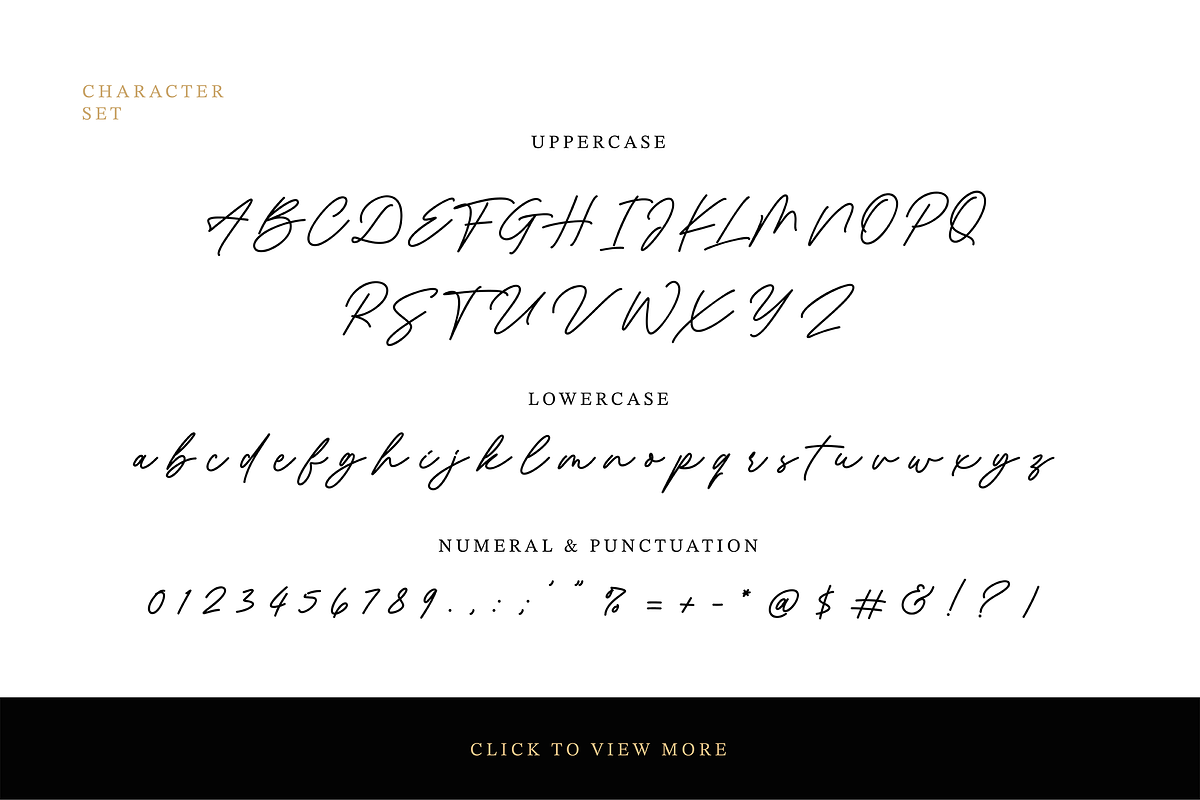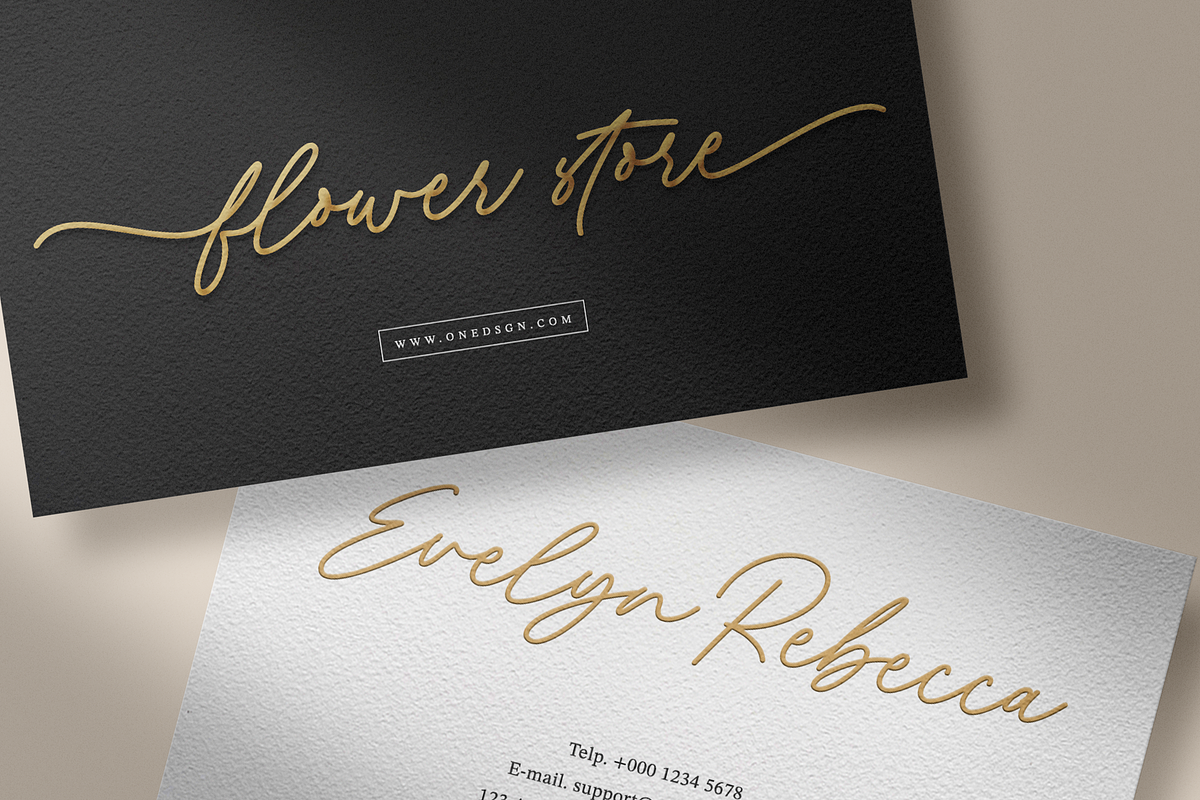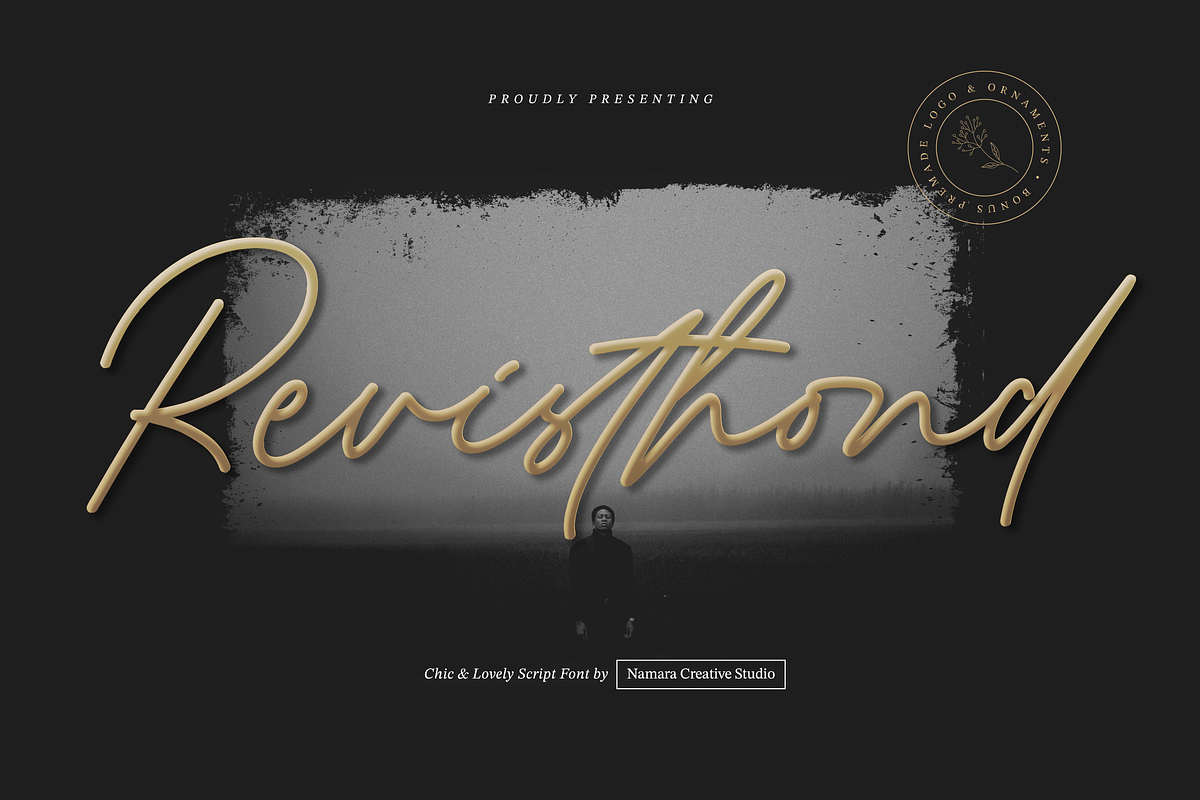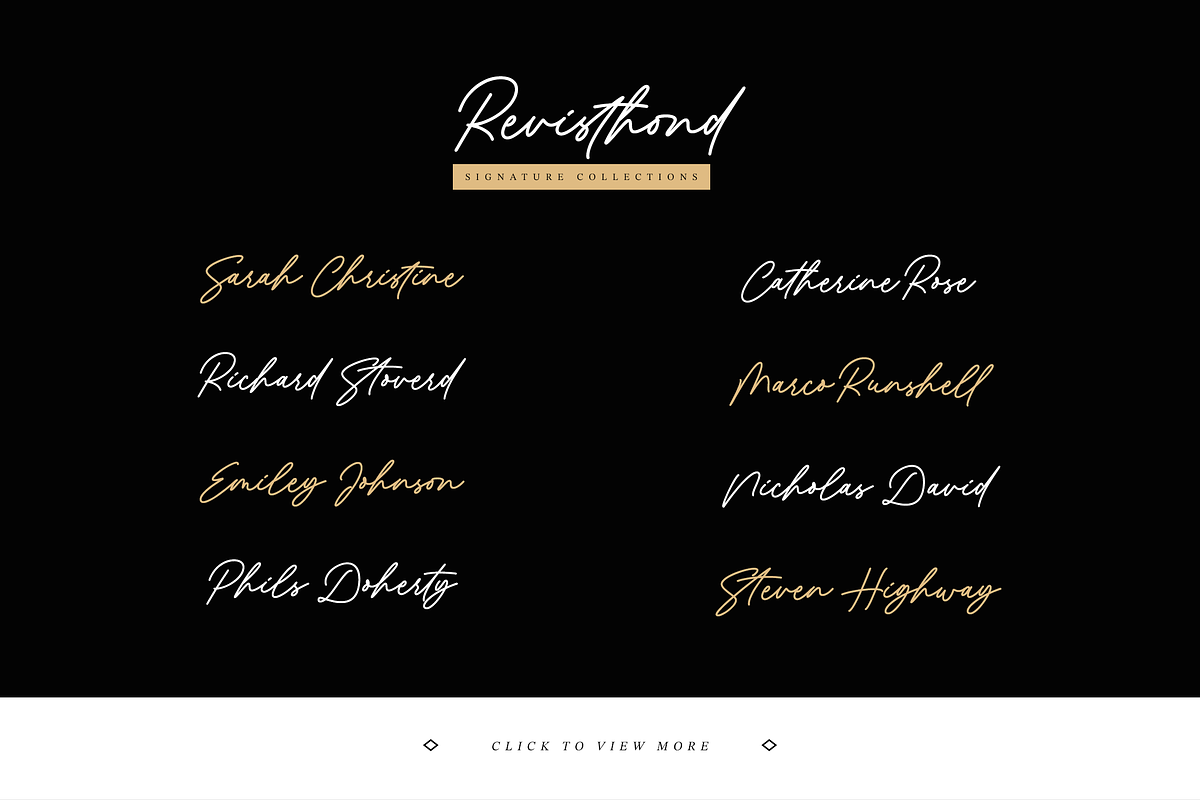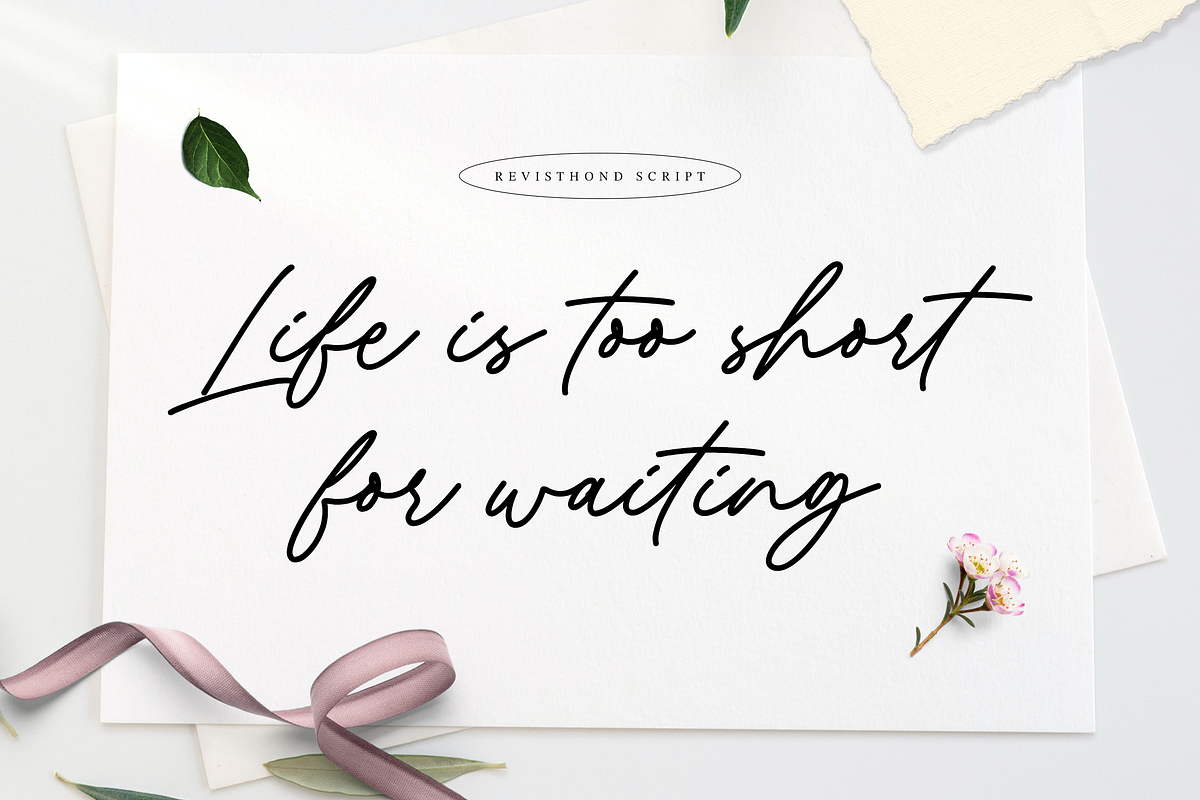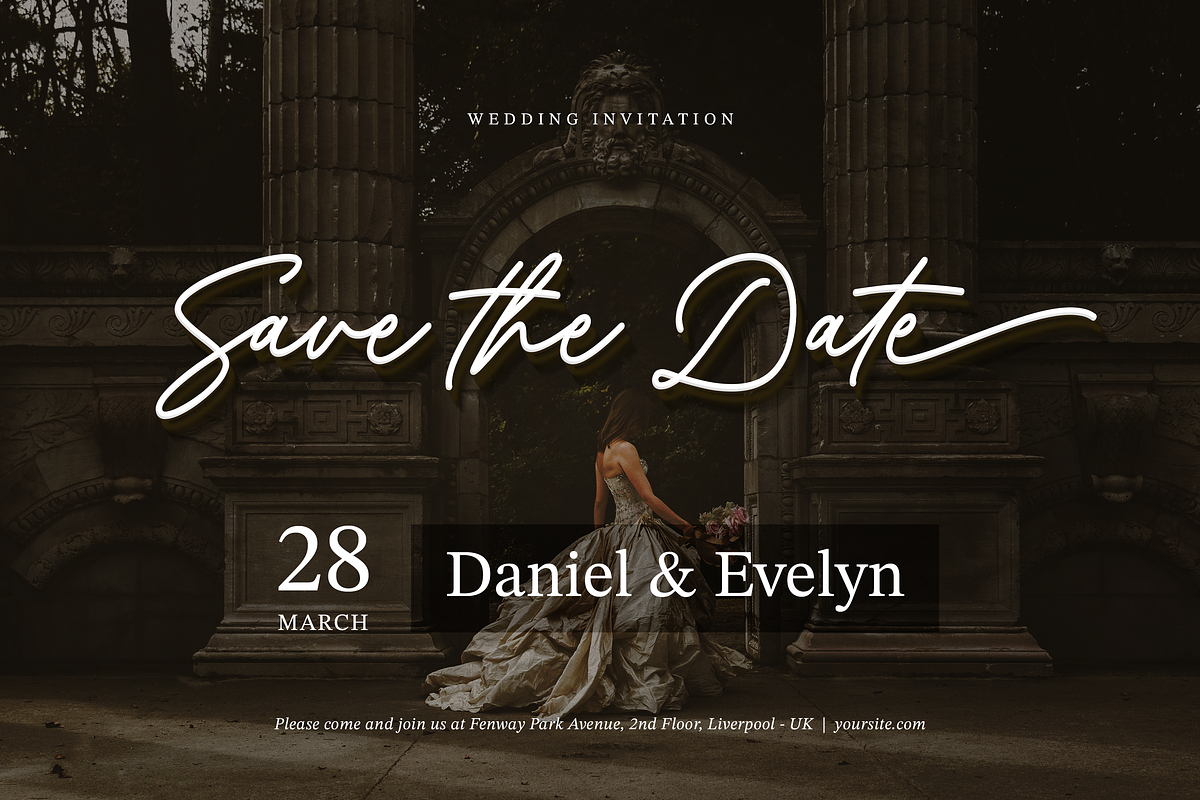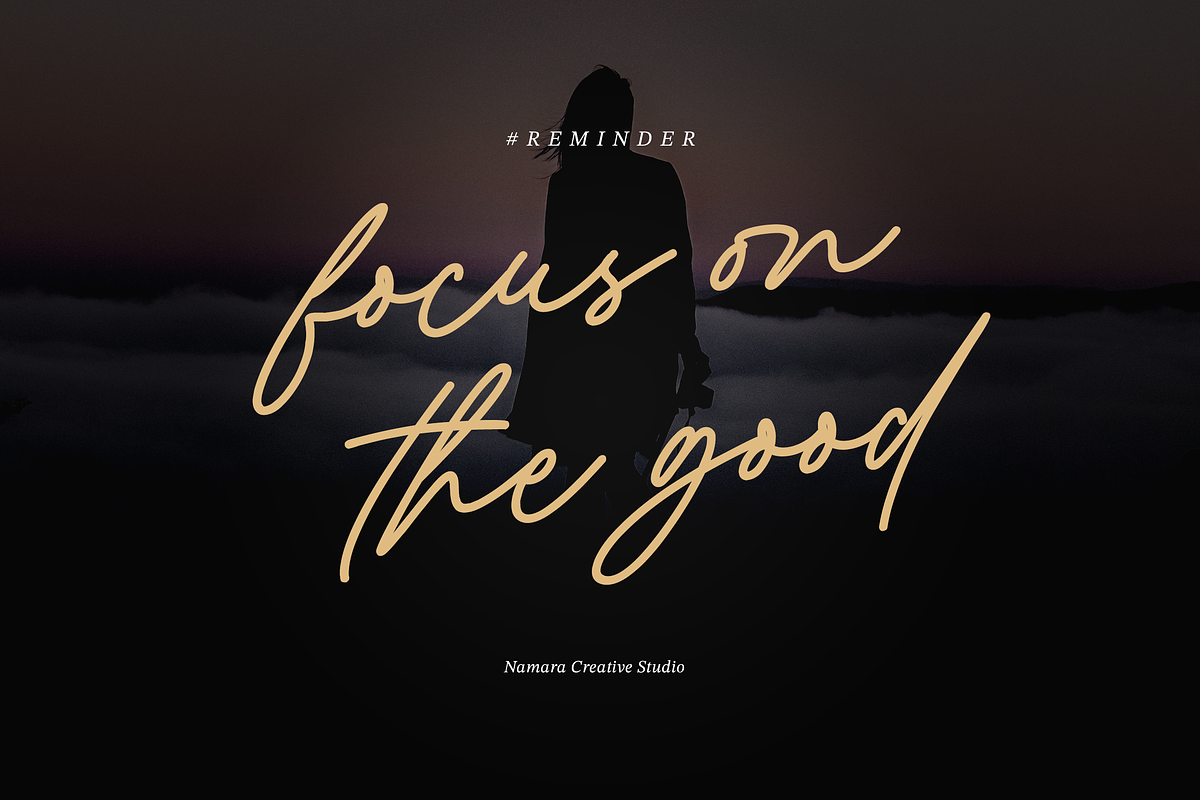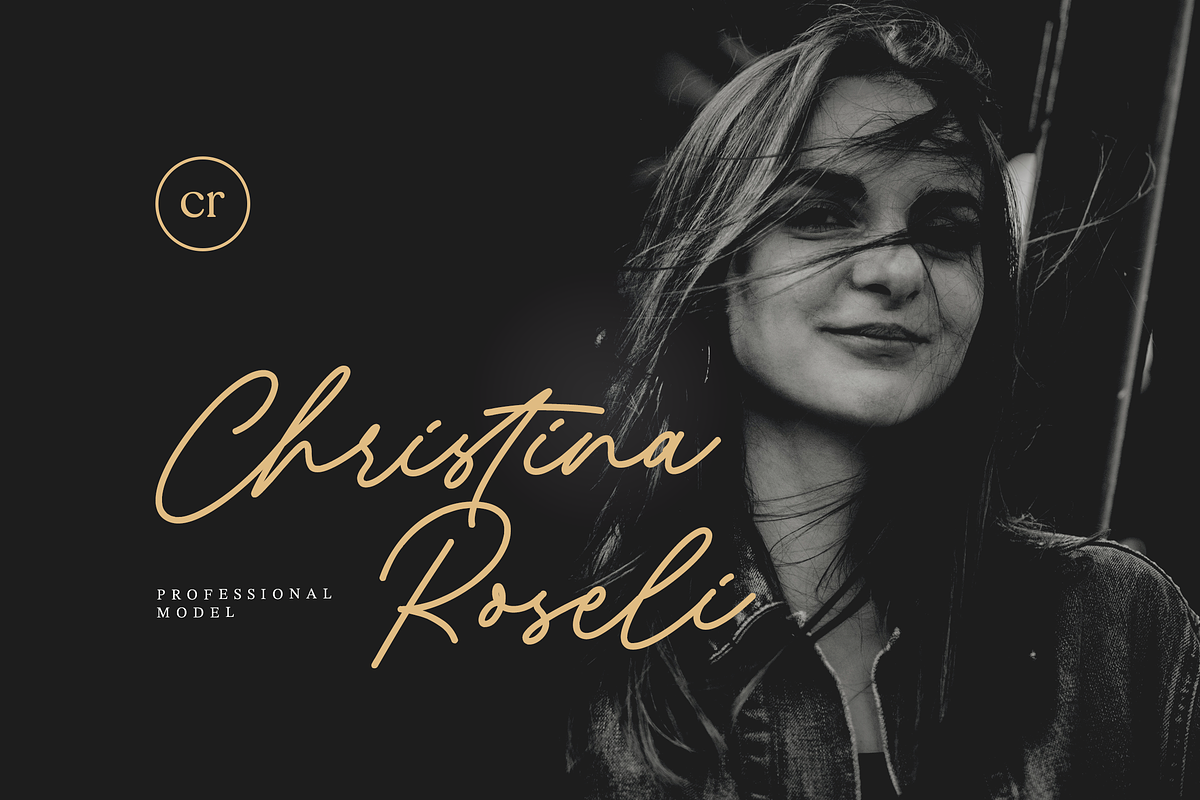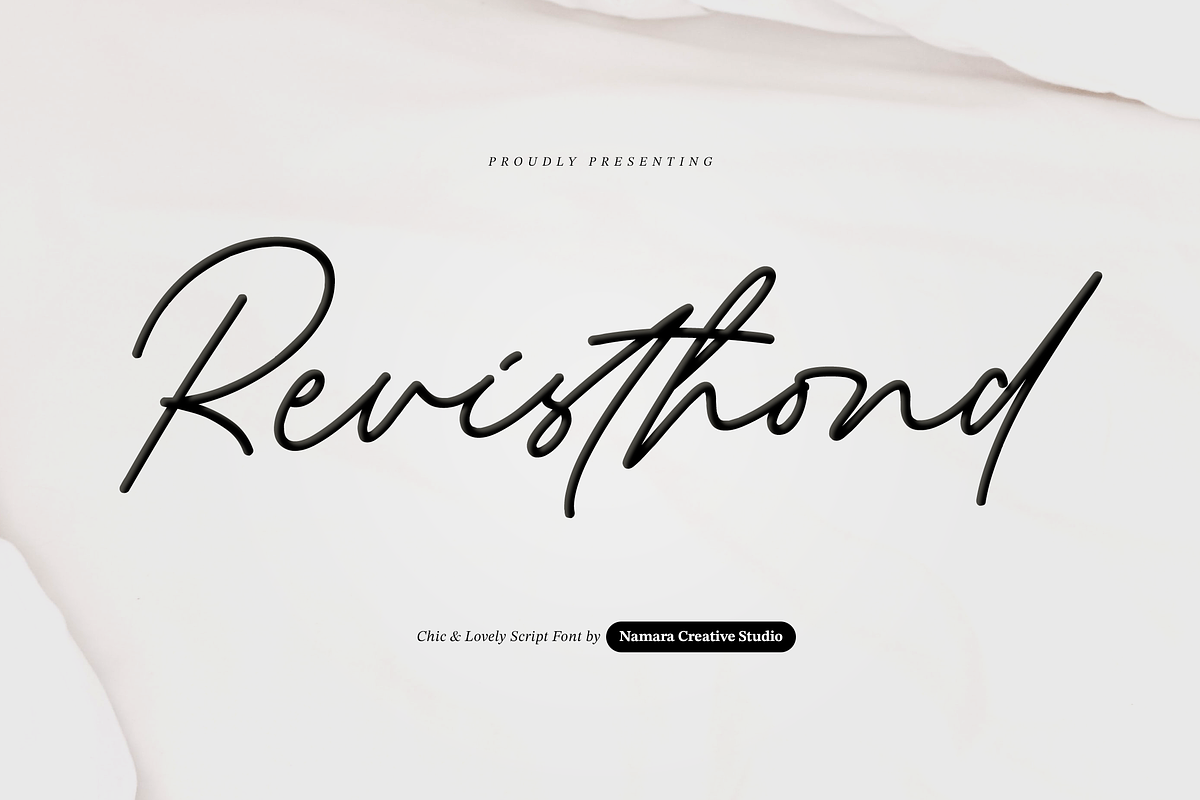
Revisthond Handwritten Script
Introducing Revisthond Script : An authentic monoline hand-drawn script font, perfect for branding, wedding invites, cards, and/or any other suitable projects. Includes full set of gorgeous uppercase and lowercase letters, numerals, a large range of punctuation, alternates, and ligatures.
All lowercase letters include beginning and ending swashes, giving realistic hand-lettered style. In order to use the beautiful swashes, you need a program that supports OpenType features such as Adobe Illustrator CS, Adobe Photoshop CC, Adobe Indesign and Corel Draw.
Revisthond Script also come with special bonus Hand Drawn Ornament and Premade Logo.